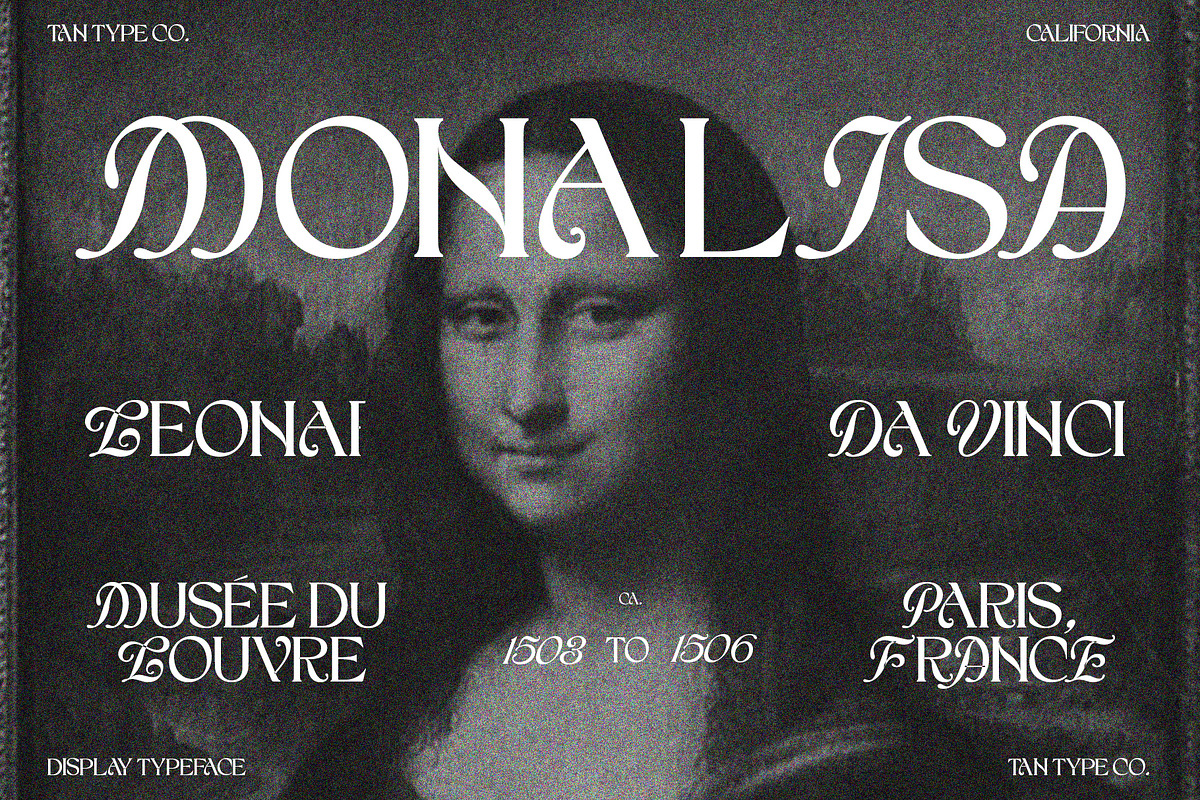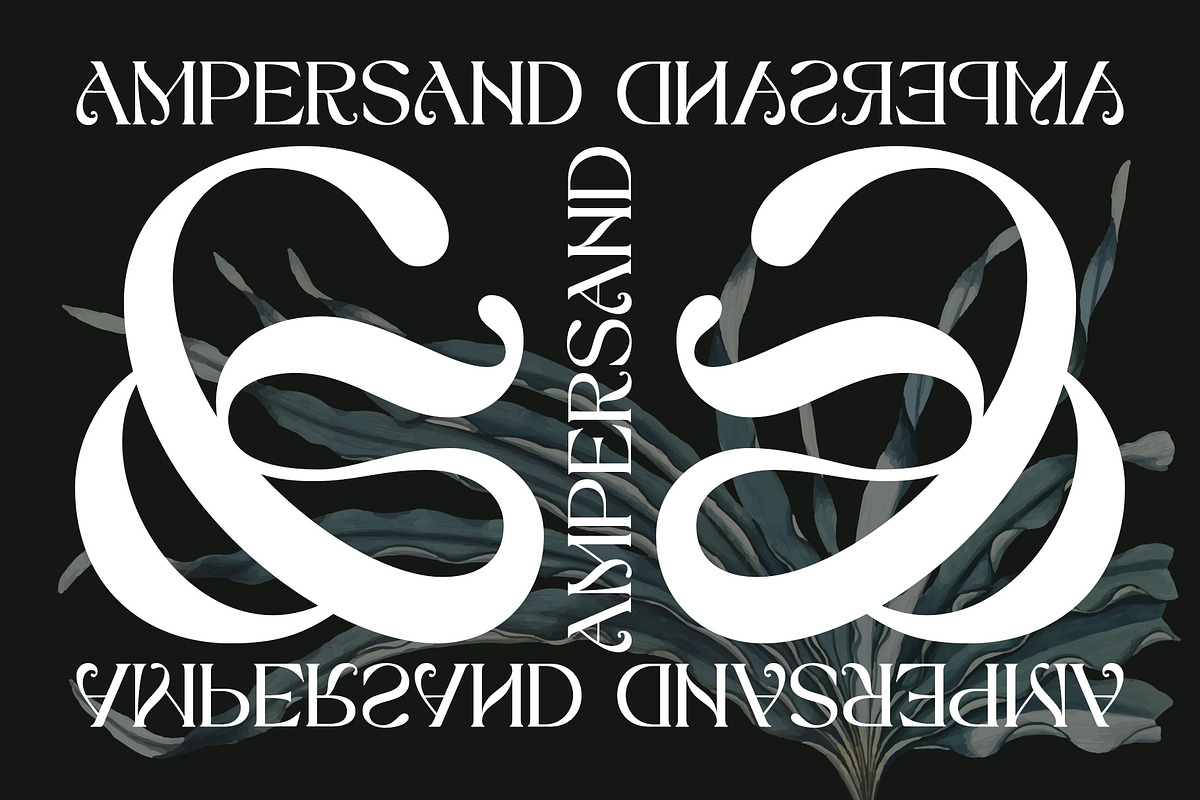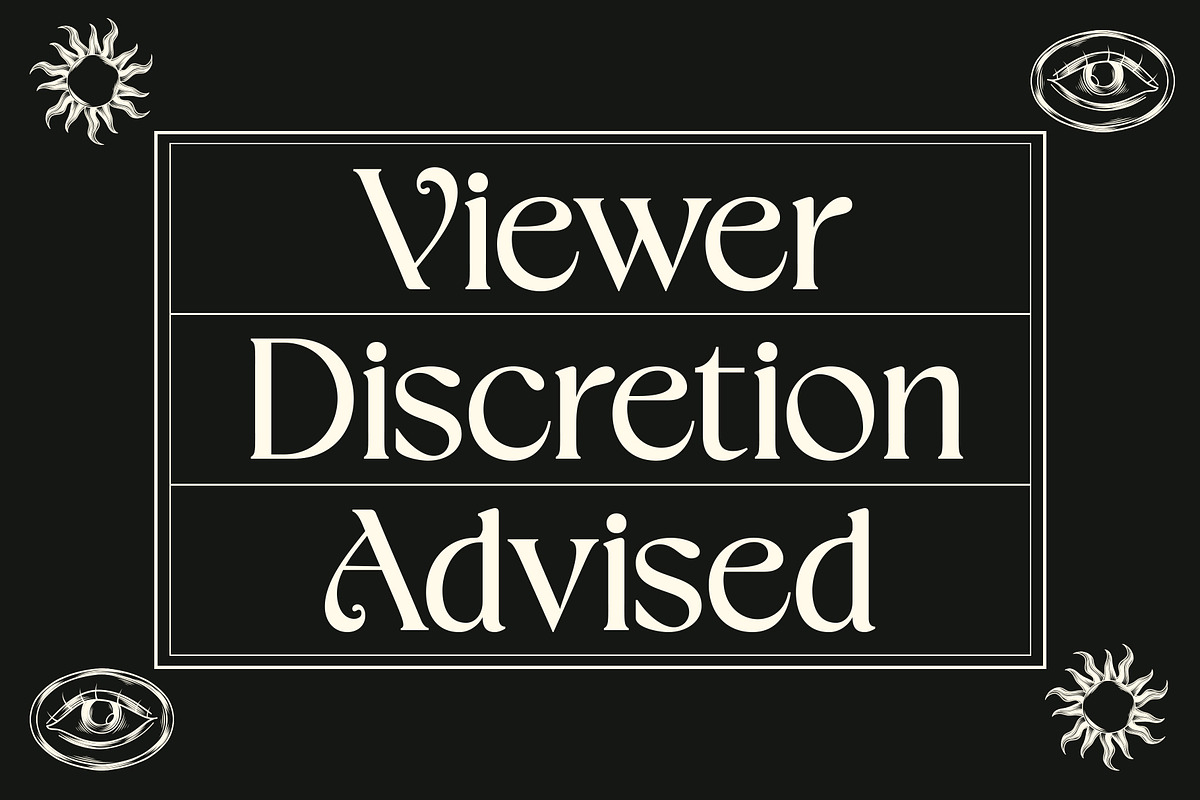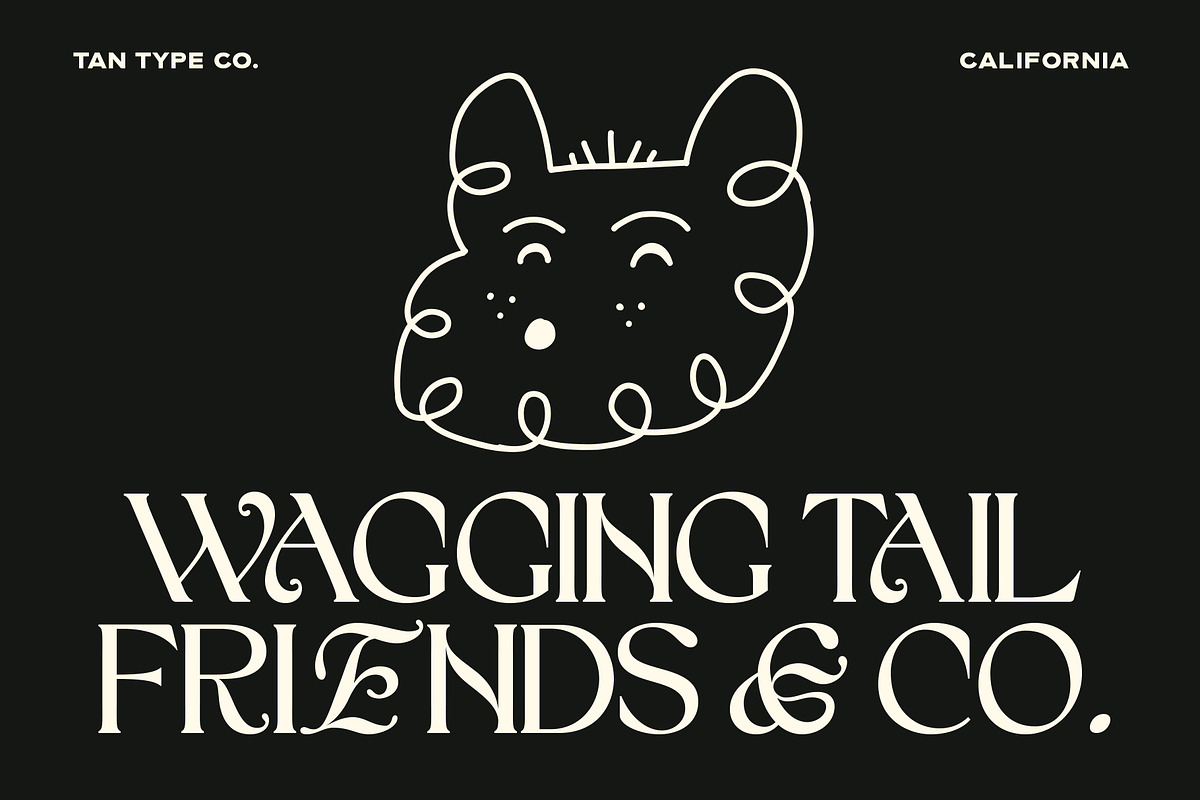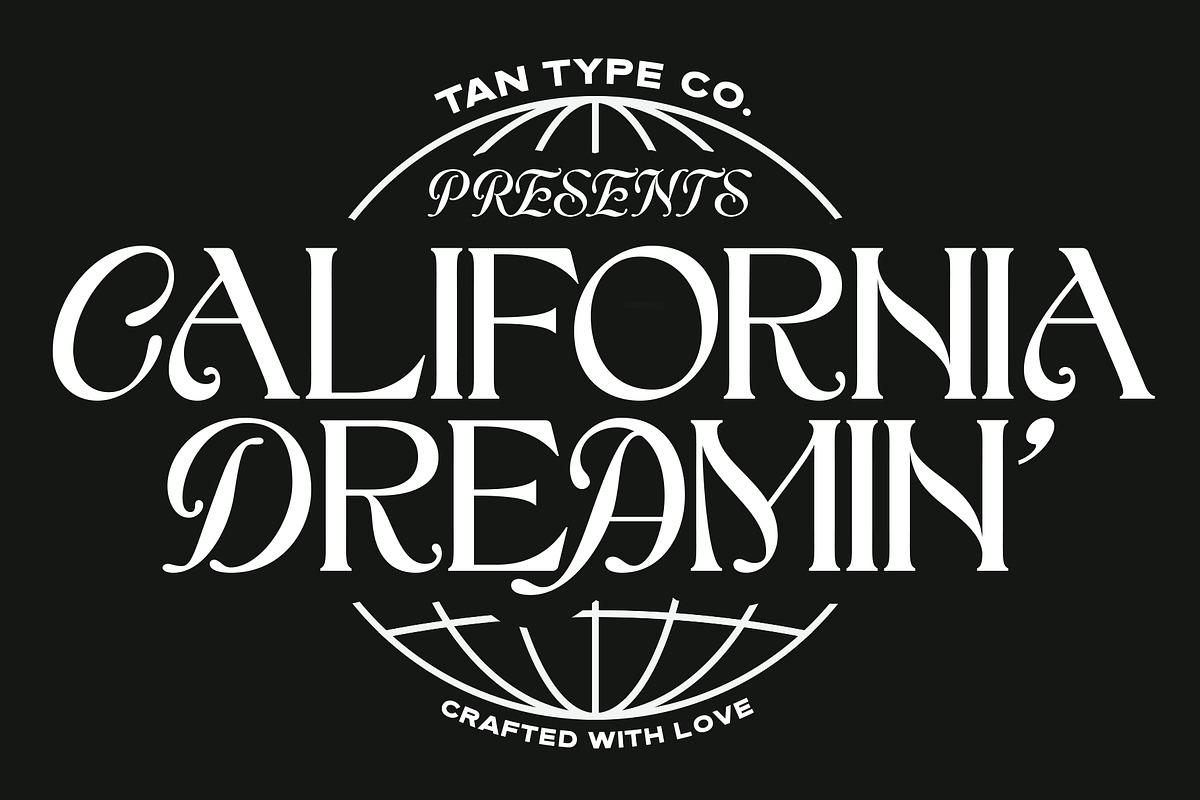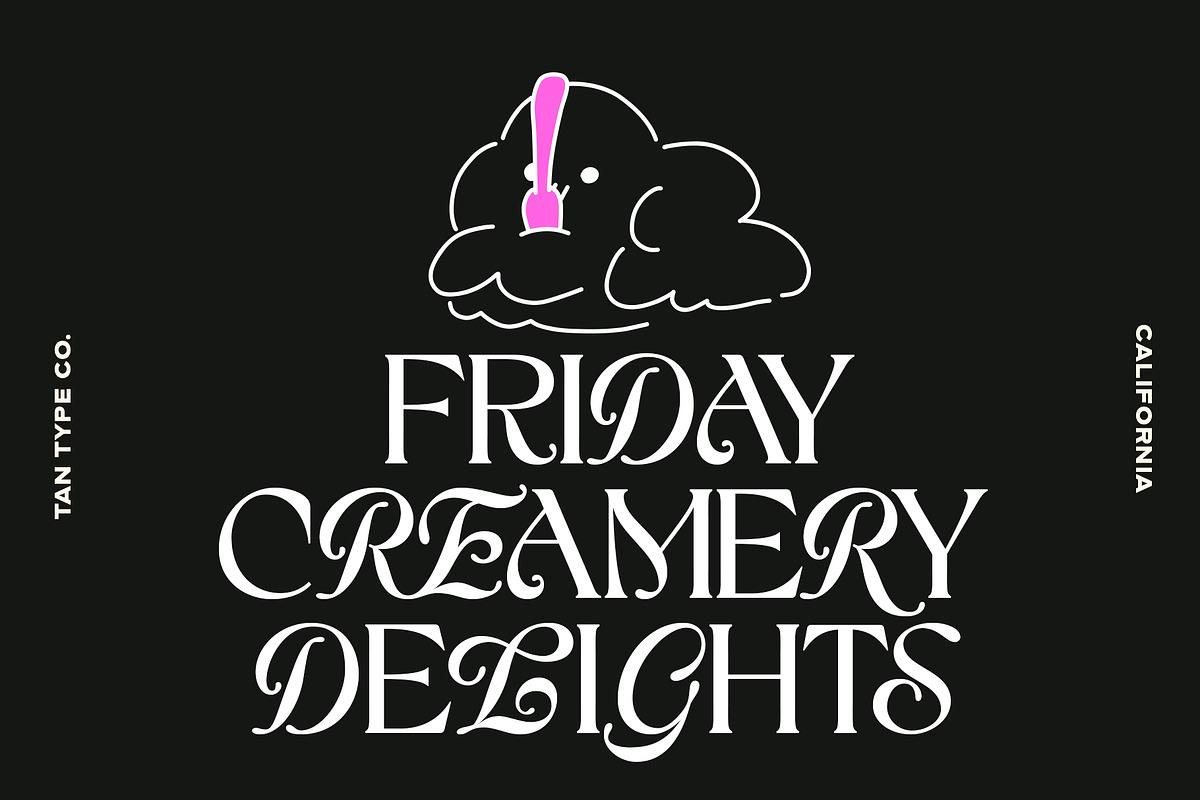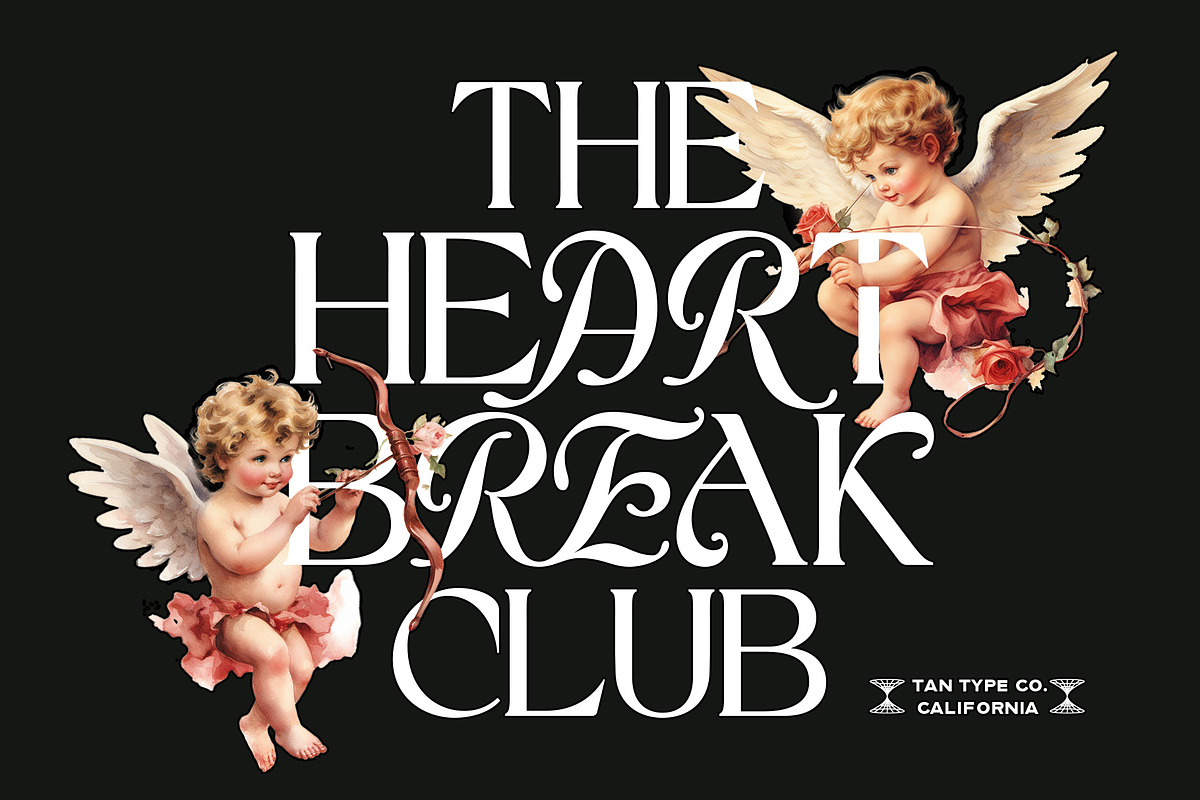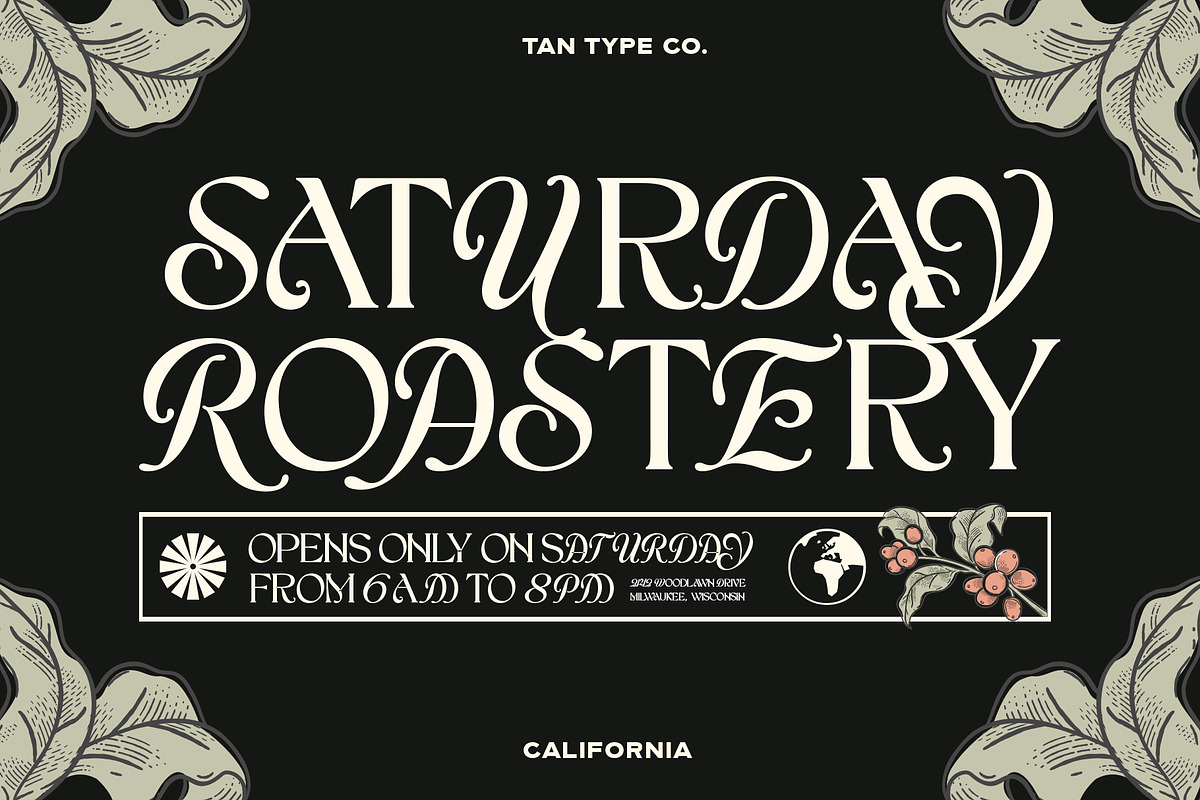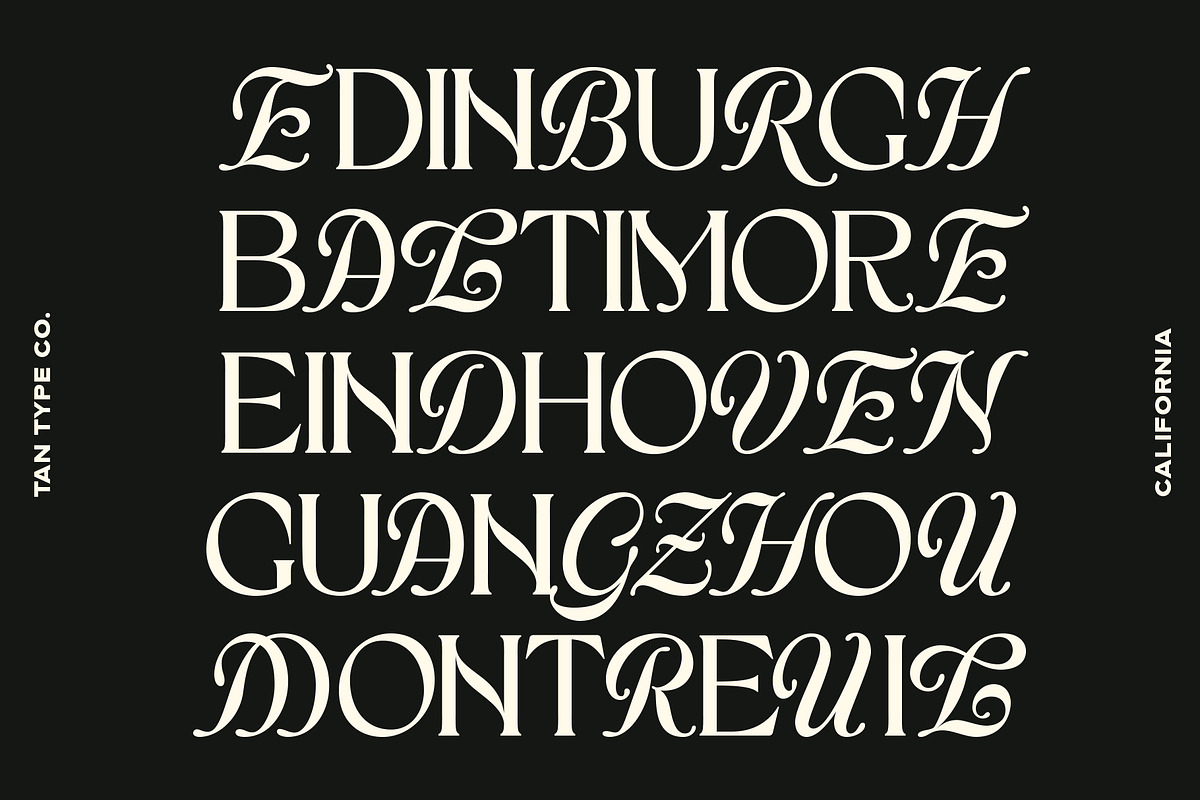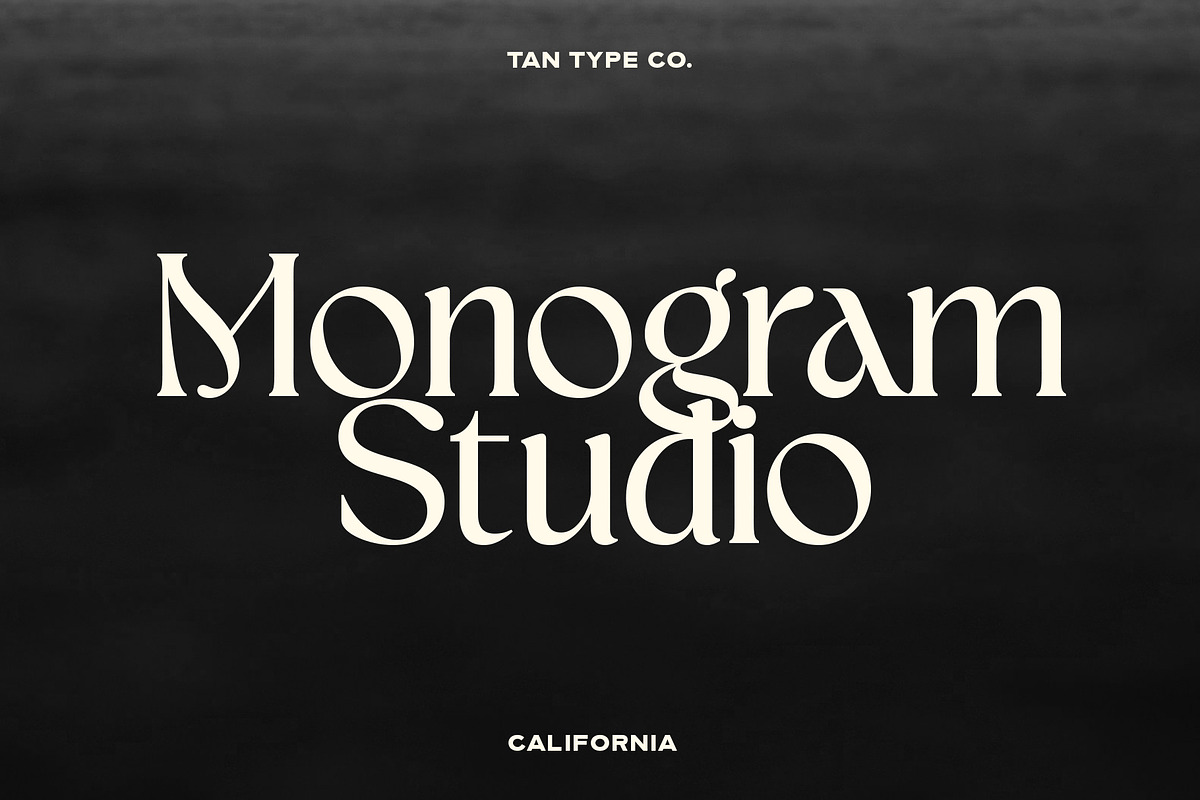
TAN - CALIFORNIA
Tan Type Company presents CALIFORNIA, a stylish serif with oblique option. It is chic and stylish, modernity with a touch of classic.